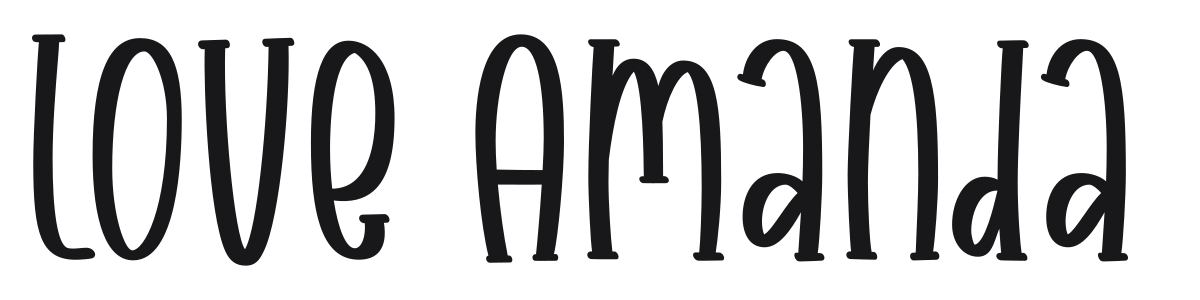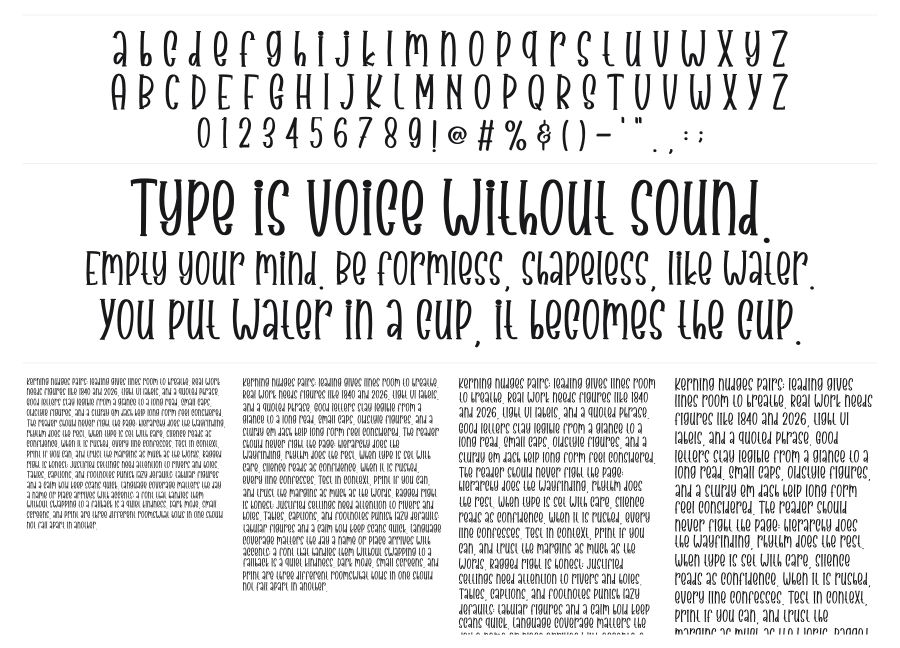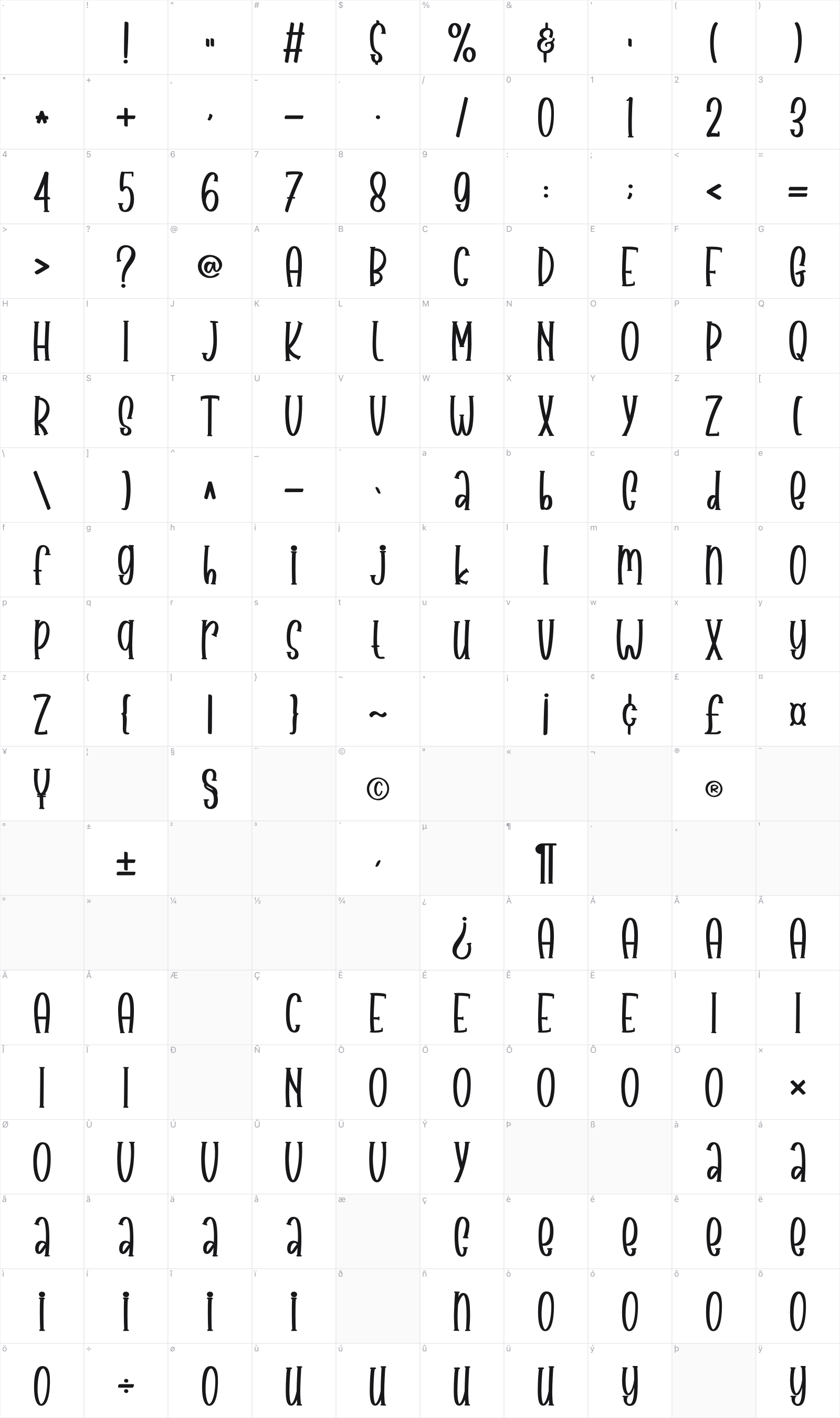
Love Amanda
Love Amanda is a quirky hand-lettered display font with tall narrow characters and small decorative hooks at stem tops that give it a charming, crafted feel. The mixed print-and-script construction creates an informal warmth that works well for greeting cards, branding, and anything that needs a personal, handmade touch. It reads as friendly without tipping into generic cuteness.